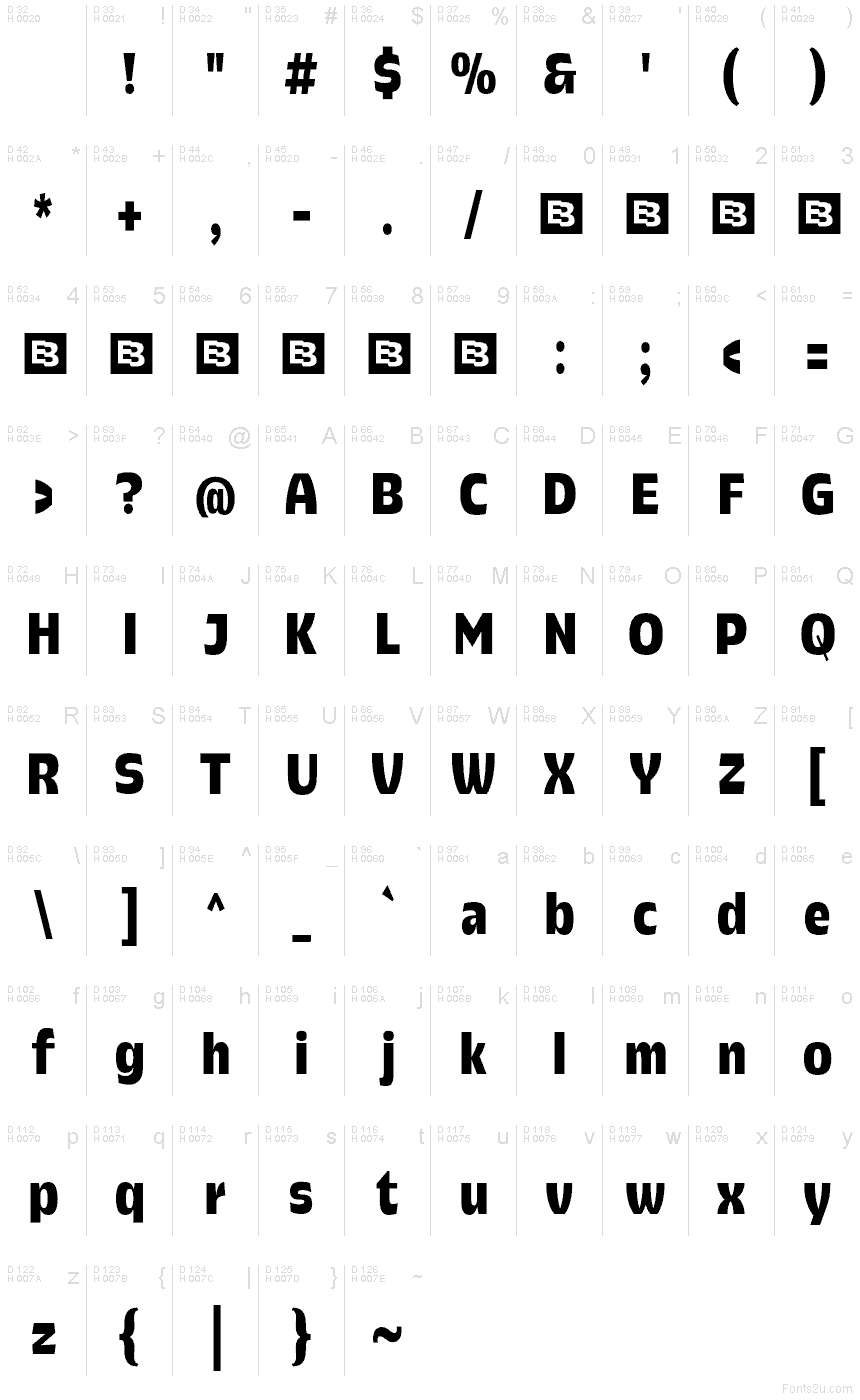
Pocas Trial ExtBd Cond
Pocas Trial ExtBd Condensed font by Eko Bimantara is a free condensed sans serif typeface. Its extra‑bold heft and narrow proportions hit hard without hogging space, with smooth curves and slightly chamfered cuts that keep heavy strokes from feeling clumsy. It’s the answer when you need big voice in tight layouts—think cramped labels, mobile banners, or short headlines where every pixel counts.
Using Pocas Trial ExtBd Condensed, you get punchy impact for posters, packaging, social promos, event flyers, signage, and video thumbnails. The compact rhythm and roomy counters stay legible at small widths, while the dense texture delivers stop‑scroll presence. This free font shines alongside the Pocas family—try pairing it with Pocas Regular for body copy—or balance its weight with airy tracking for a bold, modern lockup.